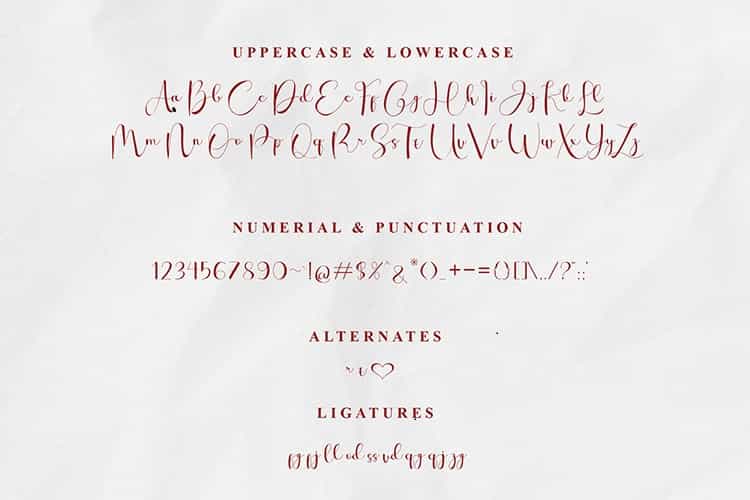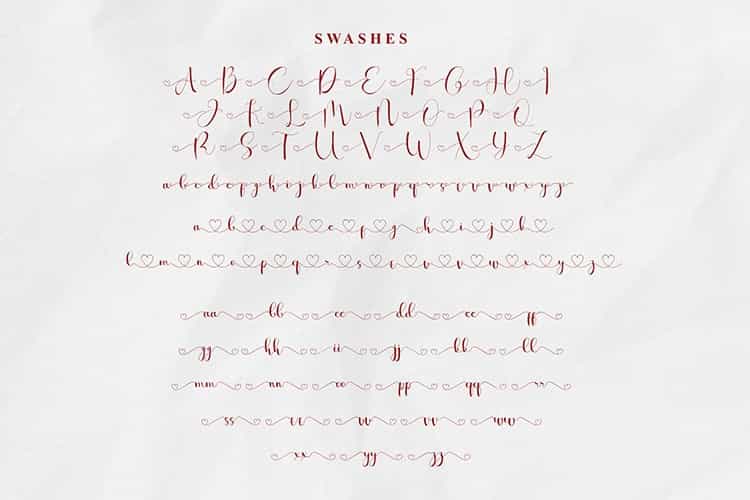
Wina aprilina is a modern calligraphy script font. This font is an ideal font for weddings, valentines events, watermark logo, brand logo, social media advertisement, packaging of products and many other purposes.